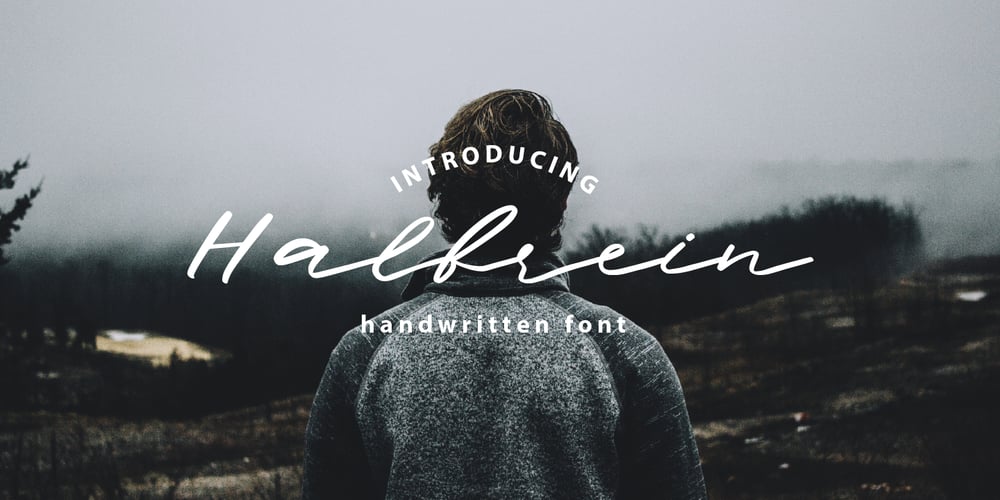
Halbrein Font Family was designed by Hleb Zhyhunou and published by Mr. Typeman. Halbrein contains 1 styles and family package options. Meet my new font Halbrein – a romantic delicate script font with its poetic flow, which simulates natural handwriting. Halbrein comes with uppercase, lowercase, standard punctuation and special letters for most European languages.